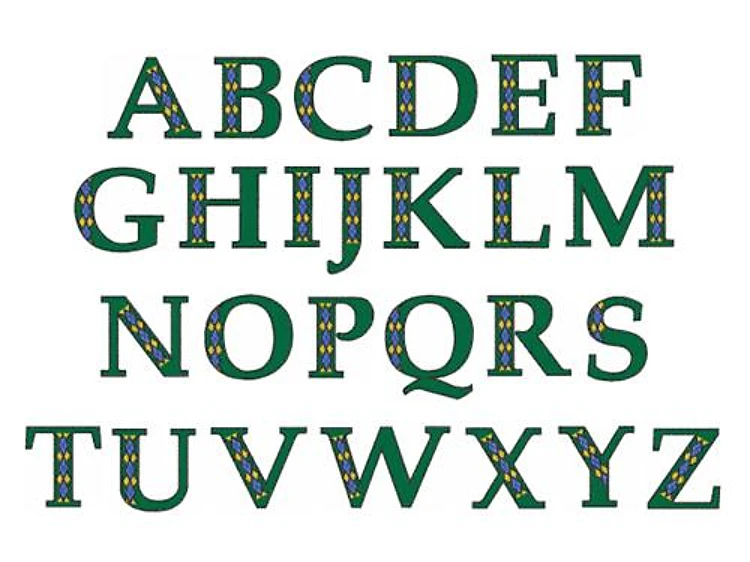
ARGYLE Embrilliance Embroidery Font - Playful Outline Design - BX font by Great Notions and other embroidery fonts available at EmbroideryDesigns.com.
Bold, uppercase embroidery font with a decorative outline style, perfect for fun projects like cushions or apparel. This unique design works beautifully in Embrilliance formats, including BX font.